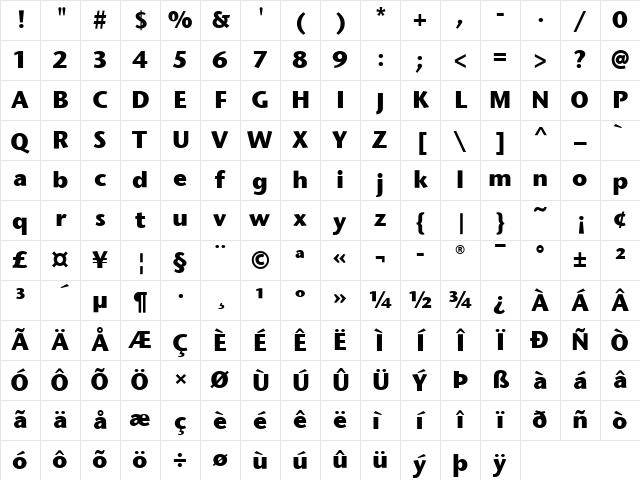
Complete Stone Sans ITC Medium Bold glyph index. Displaying only characters natively supported by Stone Sans ITC Medium Bold font.
Stone Sans ITC Medium is a composed and adaptable typeface that performs quietly and consistently across a wide range of design contexts. Its bold stroke weight gives it real presence on the page.